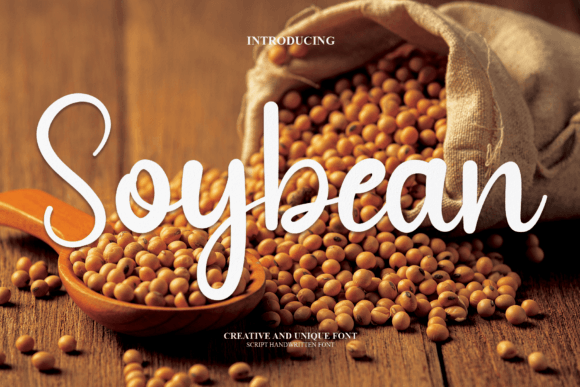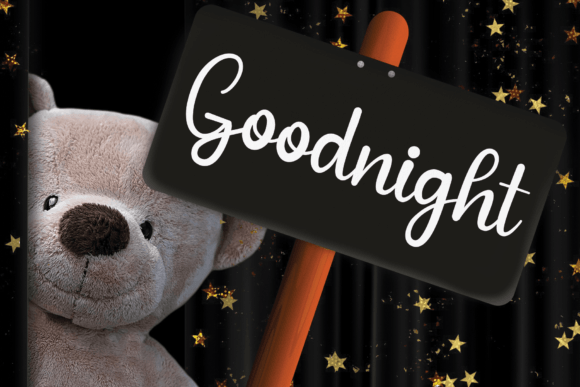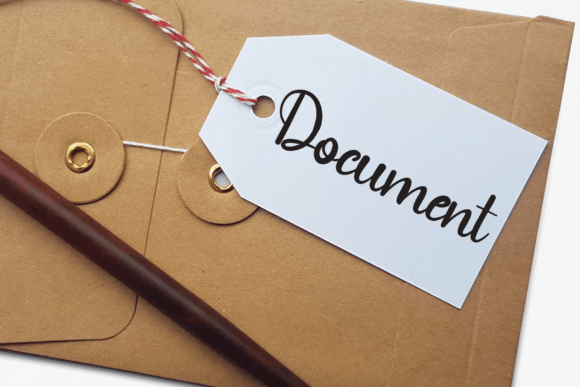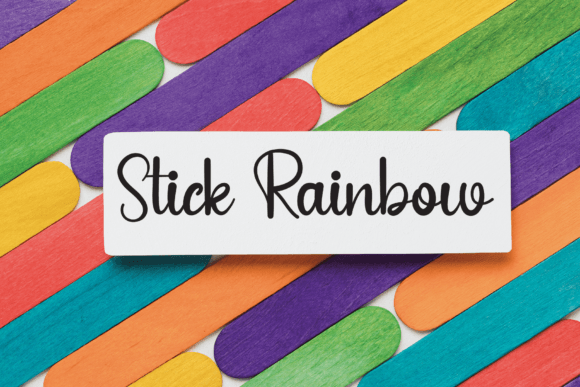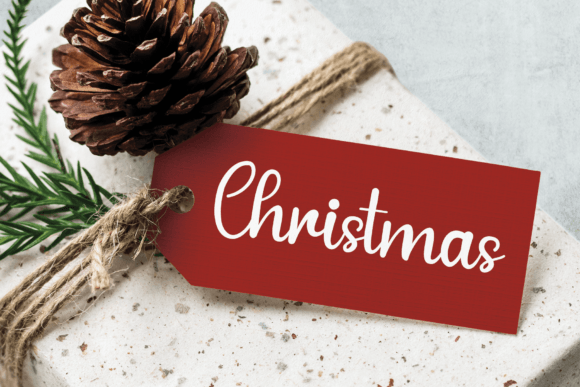
Soybean Font
About Soybean Font
“Soybean” is a captivating script font that seamlessly blends modernity with a unique shape and a natural writing style. This font offers a versatile and expressive canvas for crafting beautiful typographic designs across various applications, including branding, web design, editorial work, prints, crafts, and quotes.
The modern and distinctive shape of “Soybean” adds a contemporary flair to your designs, making it a perfect choice for a wide range of creative projects. Its natural writing style imparts an authentic and organic feel, making it well-suited for crafting memorable and impactful designs.
Whether you’re working on logotypes, designing wedding invitations, creating romantic cards, labels, or packaging, “Soybean” provides a creative playground to bring your ideas to life. Its adaptability and aesthetic appeal make it a valuable asset for adding a personalized touch to names and conveying a sense of sophistication and uniqueness.
“Soybean” transforms your creative ideas into visually stunning designs, enhancing their overall impact and resonance. Its versatility allows it to seamlessly integrate into different design contexts, making it a reliable choice for a wide array of projects.
Embrace the beauty and flexibility of “Soybean” as you embark on your design journey. From digital platforms to tangible items, this font serves as a dynamic tool, ready to elevate your typographic creations to new heights of creativity and style. Watch as “Soybean” becomes an integral part of your design toolkit, inspiring and enhancing your artistic vision with every stroke.